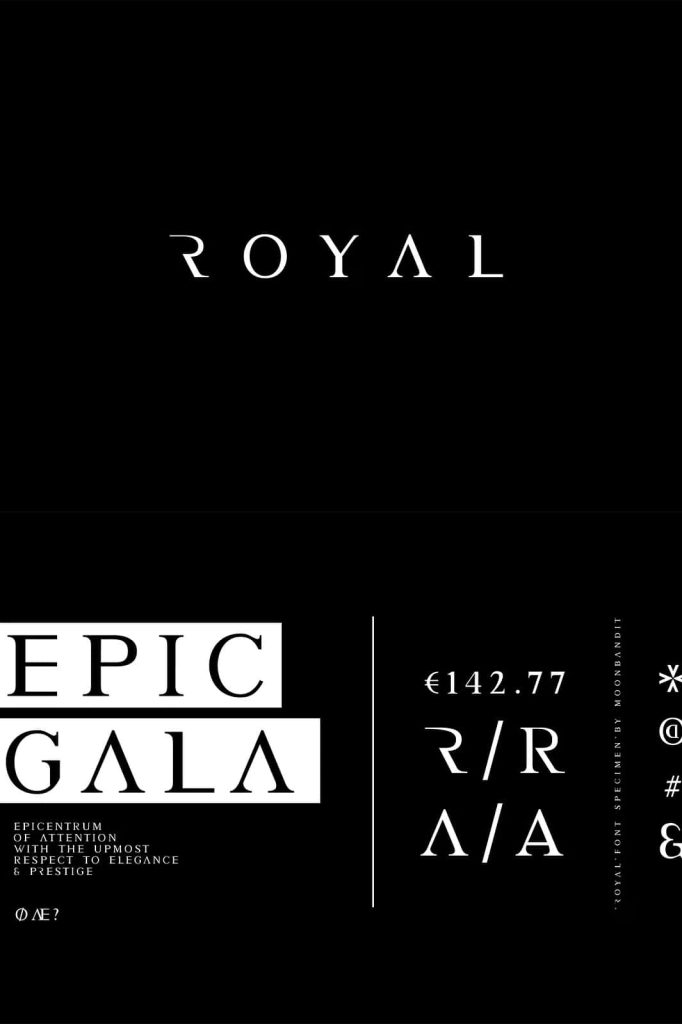
Royal – An elegant luxurious fontleastedMay 10, 2025Fonts A luxurious high end elegant serif font. Crafted to emphasize and upscale your premium look with a twist. Download